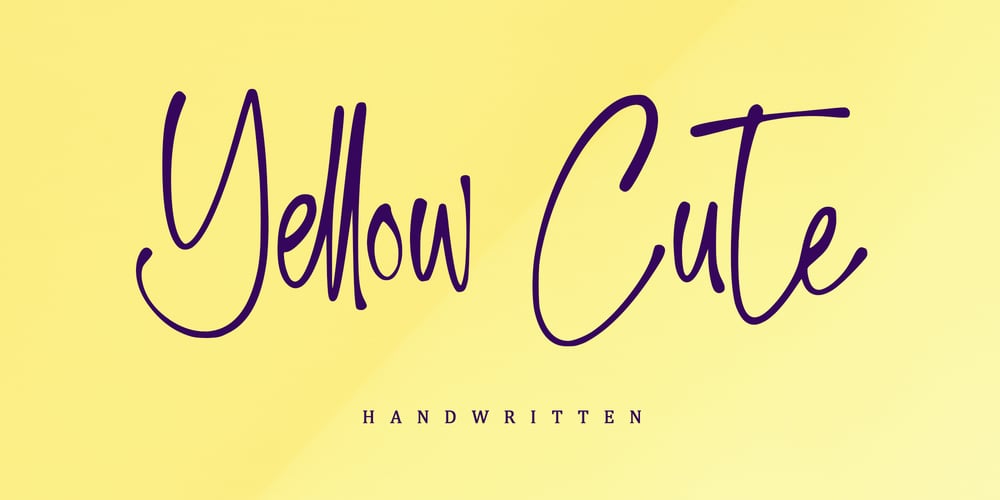
Yellow Cute Font Family was designed by Alif Ryan Zulfikar and published by Sakha Design. Yellow Cute contains 2 styles and family package options. Yellow Cute is a lovely and modern script font that exudes elegance and sophistication. Each letter is delicately crafted with fluid and graceful strokes, creating a timeless look that’s perfect for everything from wedding invitations to branding projects. Its sleek and chic style will add a touch of class to any design. Keep in mind that the font is PUA encoded, meaning that you can access all delightful glyphs and swashes effortlessly.